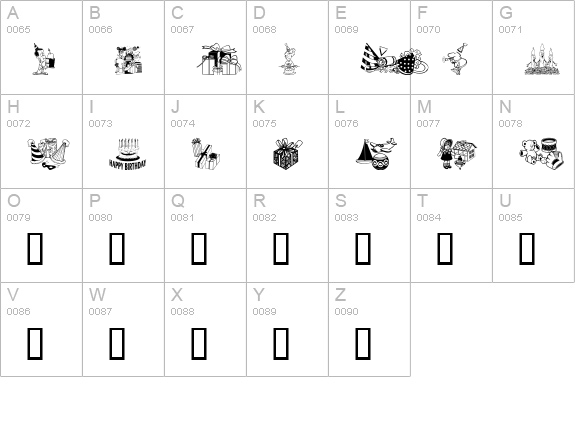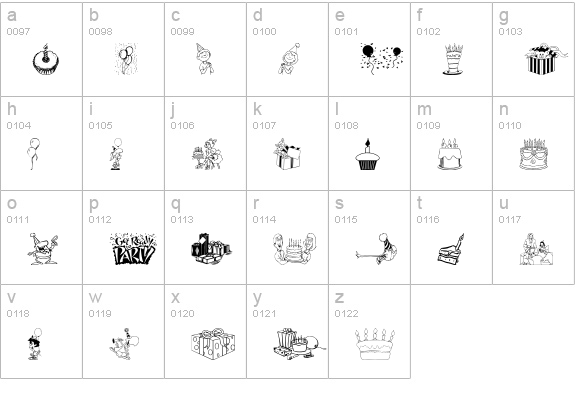
Birthdaze font is a whimsical and playful typeface that brings a sense of joy and celebration to any design project. With its unique hand-drawn style and quirky details, Birthdaze is perfect for adding a touch of fun to birthday invitations, greeting cards, posters, and more. This font is free to download at FontsMarket.com, making it accessible to all designers looking to inject some personality into their work. Let Birthdaze font be the life of the party at your next design project!